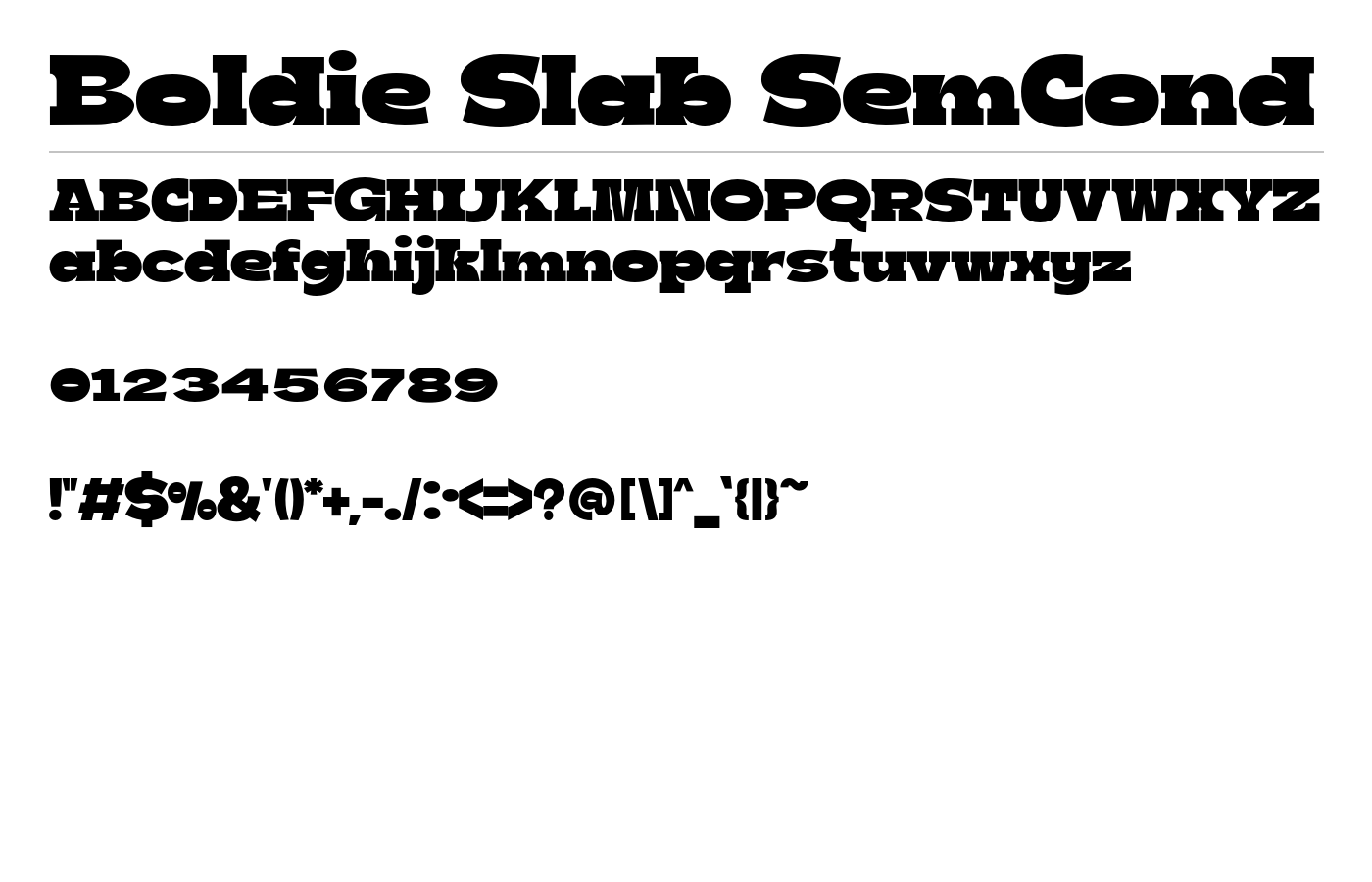
Boldie Slab is a robust and playful slab serif font featuring very bold weight and sturdy block-like serifs with moderate contrast. Its wide letterforms and slightly compressed proportions give it a strong presence, making it ideal for striking headlines, logos, and branding that demand attention with a touch of retro charm. This font works well for projects seeking a confident, modern yet approachable vibe.
Boldie Slab Font
About Boldie Slab Font
| Font family | Boldie Slab Font |
| Category | Slab-serif |
| Designer | ramandhani nugraha |